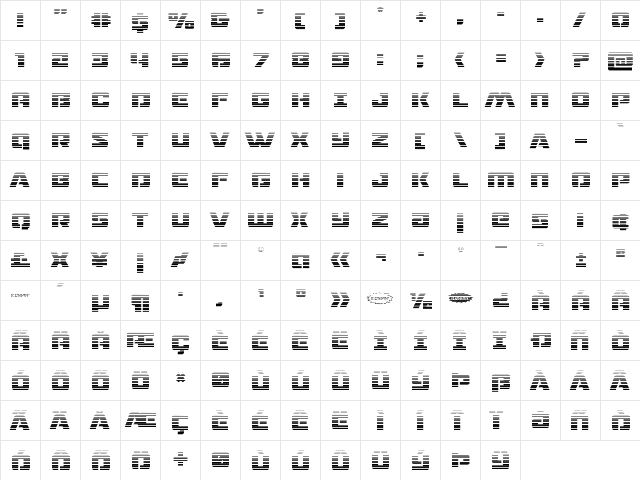
Drone Tracker Gradient Regular
Design Context for Drone Tracker Gradient Typeface
Drone Tracker Gradient is a composed and adaptable typeface that performs quietly and consistently across a wide range of design contexts.